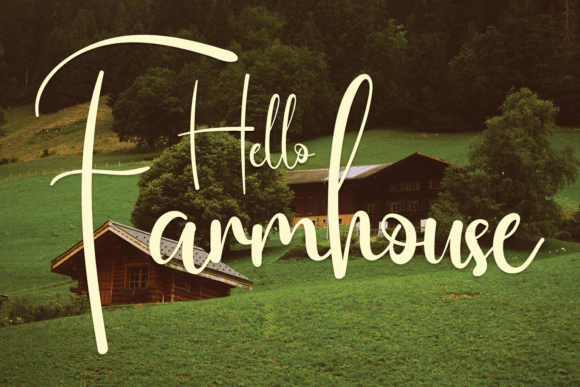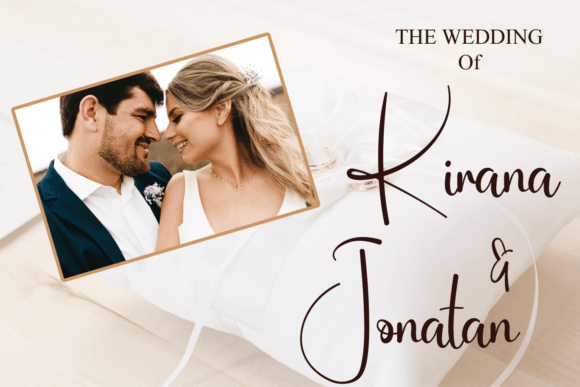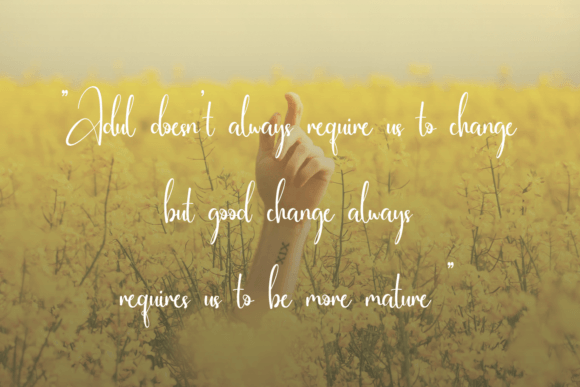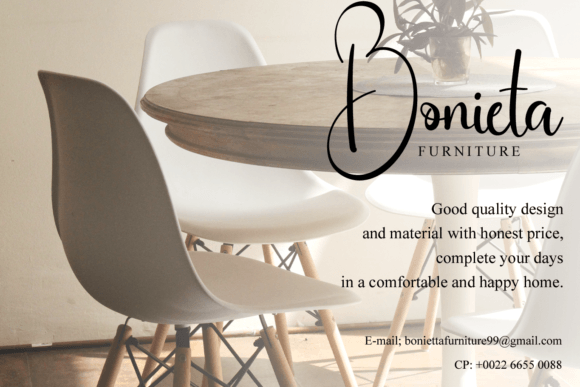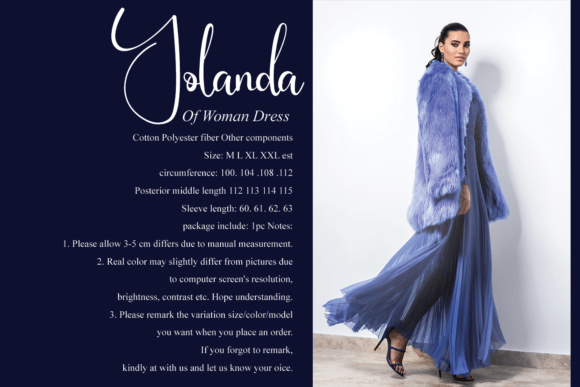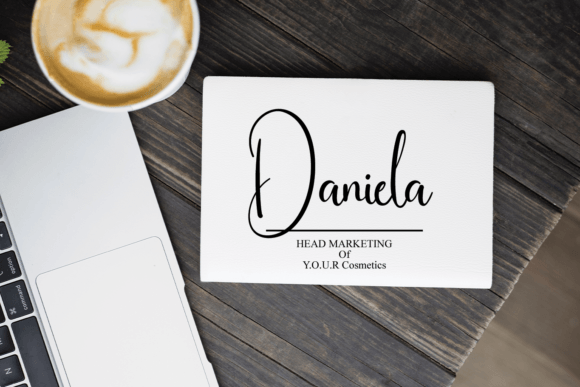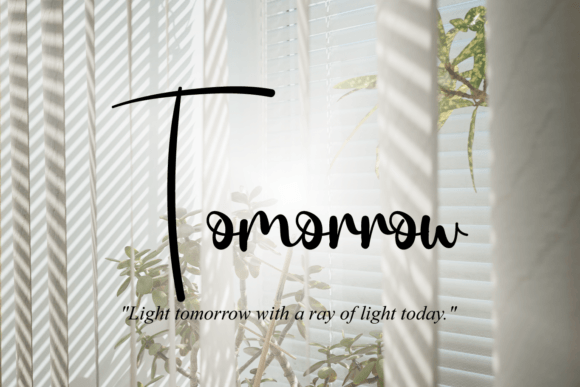
Hello Farmhouse Font
About Hello Farmhouse Font
“Hello Farmhouse” is a romantic and sweet calligraphy script font that brings a touch of charm to your creative designs. With characters that appear to dance along the baseline, this font adds a sense of whimsy and elegance, elevating any project to a luxurious level.
The calligraphy script style of “Hello Farmhouse” imparts a romantic and handwritten feel to your text. The carefully crafted characters and flowing strokes contribute to the font’s overall sense of charm and sophistication.
The unique feature of characters appearing to dance along the baseline adds a playful and dynamic element to “Hello Farmhouse.” This distinctive quality makes the font stand out and brings a lively and luxurious spark to your designs.
Whether you’re working on wedding invitations, branding, or any creative project that requires a romantic and elegant touch, “Hello Farmhouse” is designed to enhance the overall aesthetic. Its versatility allows it to adapt to various design contexts, making it a valuable addition to your font library.
In summary, “Hello Farmhouse” is more than just a font; it’s a design asset that infuses your projects with romance, sweetness, and a luxurious spark. Whether you’re creating invitations or adding a touch of elegance to any creative endeavor, “Hello Farmhouse” is ready to bring a delightful and sophisticated charm to your text.